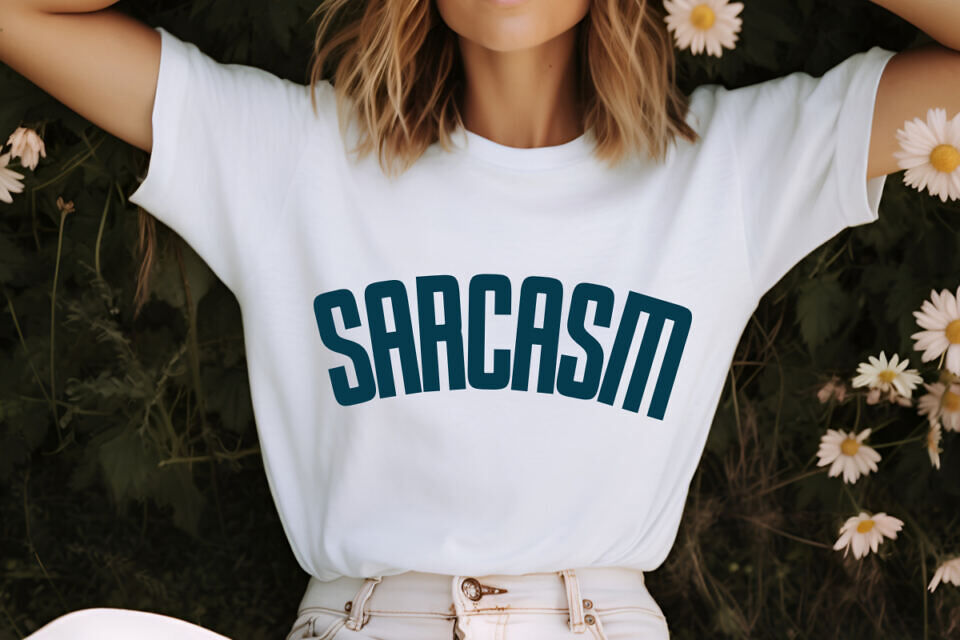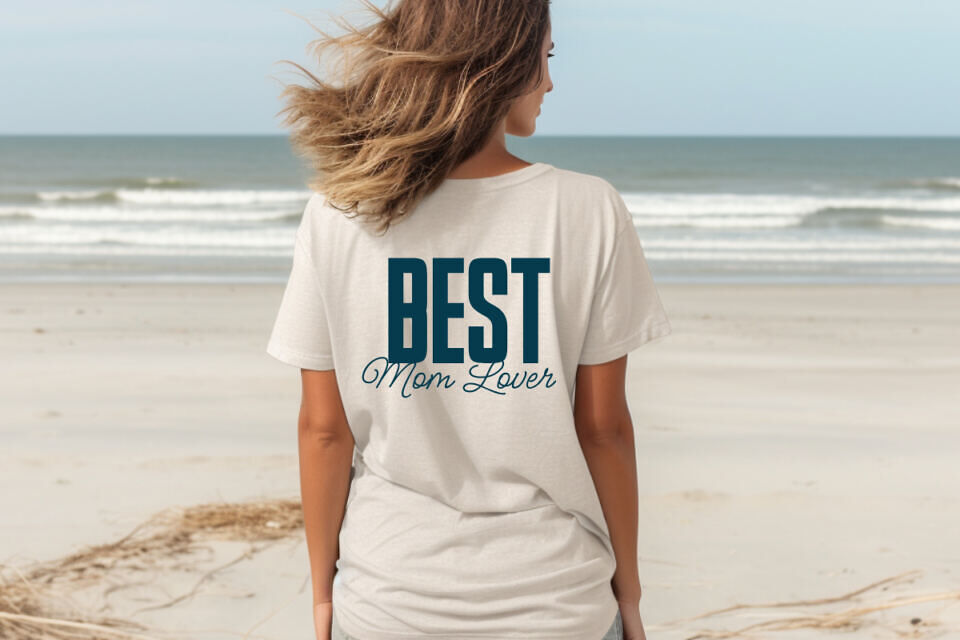
Header is a bold and sophisticated modern condensed sans serif font, meticulously crafted for designers who seek a balance of strength and elegance. Featuring tall, clean letterforms with subtly softened corners, this font provides a high-impact look that remains approachable and professional.
It is an exceptional choice for Print On Demand projects such as statement t-shirts, typography posters, and modern tote bags, as well as for digital branding, tech logos, and sleek product packaging. Whether you are designing for a minimalist lifestyle brand or a cinematic title sequence, Header delivers a contemporary aesthetic that commands attention.